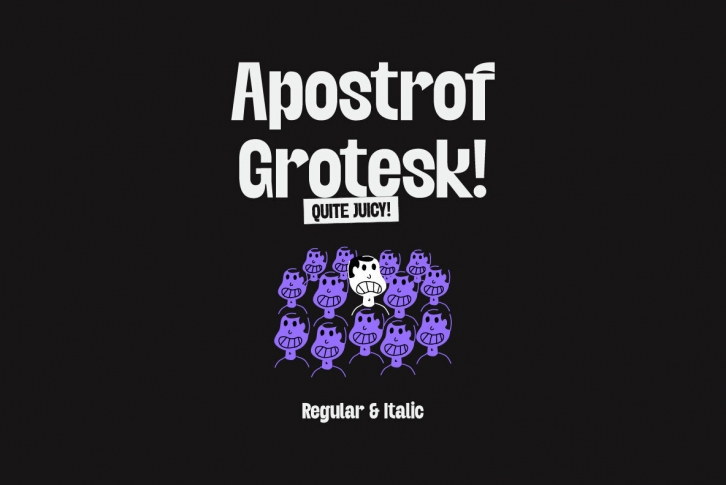
Introducing Apostrof Grotesk: The Artistic Fusion of Excitement and Sophistication
In an ever-evolving world of graphic design, Kulture Type introduces the latest sensation, Apostrof Grotesk. This freshly roasted and locally made type, rightly termed as 'the ultimate tool for graphic designers', administration an essence of chic ingenuity with its unique blend of seriousness and funk.
Designed with a free spirit, Apostrof Grotesk keeps the joy factor intact while lending a touch of refined sophistication. Its juicy style, brimming with liveliness is the perfect fit for those looking to infuse some fun into their projects. Versatility meets creativity in this one-of-a-kind type, making an intriguing choice for marketing firms that dare to differentiate.
Key Features of Apostrof Grotesk:
- Locally Crafted Design: Apostrof Grotesk is proudly made, offering a touch of local authenticity to your projects.
- Versatile Usage: It's adaptable nature makes it a sound choice for a wide array of design projects. Be it marketing material or funky branding, it fits all.
- Distinctive Styling: The ingenious blend of styles gives it a unique vibe that stands out in marketing campaigns.
- Funk Factor: This type is brimmed with vivacity, ready to paint your designs with fun and excitement.